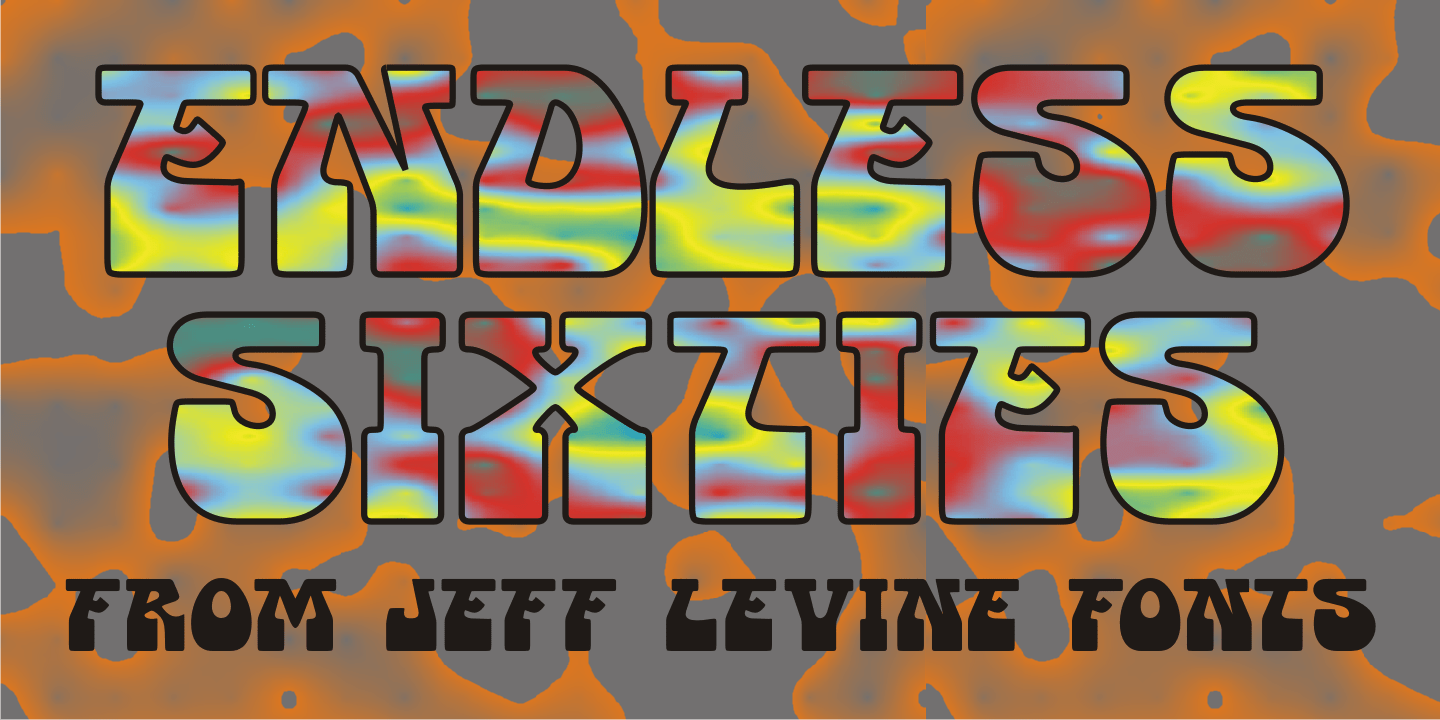
Endless Sixties
Sunny summer days, white sand beaches and radical waves come to mind with Endless Sixties JNL, inspired by a poster for a surfing movie entitled 'Planet Aura”.
The image of the poster was provided by Gene Gable, who has on many occasions supplied Jeff Levine with many interesting font inspirations.